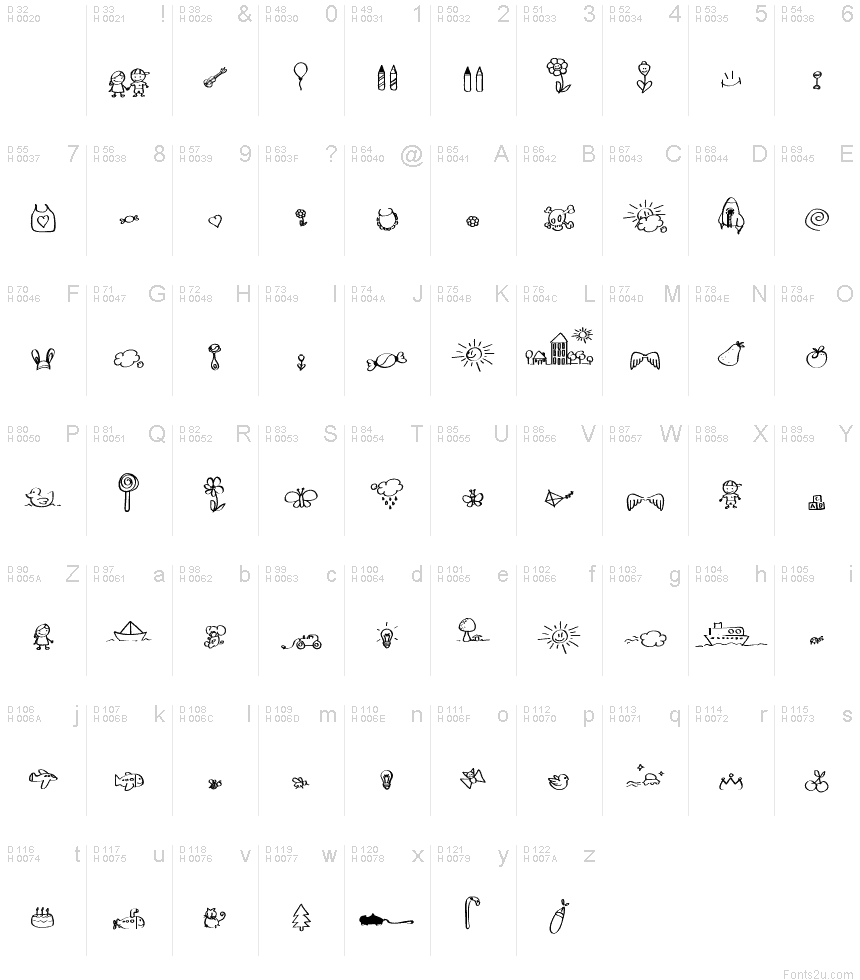
Sleep on the Moon is a free cartoon dingbat font filled with loosely inked pictures of flowers, animals, weather signs, treats, and playful objects. The uneven black contours make every symbol feel quickly sketched.
These cheerful icons can become part of the illustration in children's activity sheets, party invitations, and handmade packaging, especially when a project needs friendly visual shorthand. On stickers and social posts, the mix of suns, clouds, cakes, cherries, insects, and small creatures can build a lively pattern or replace conventional lettering with a row of miniature drawings.